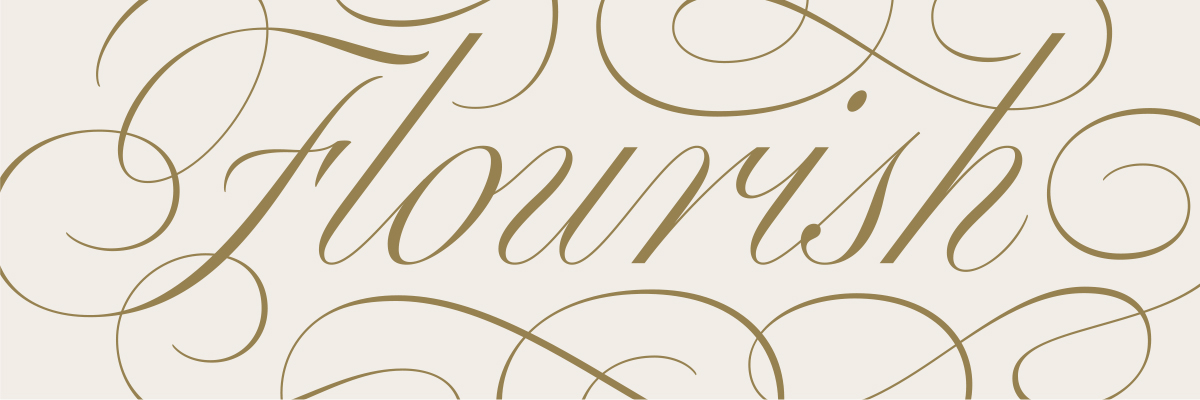
The personality and allure of flourished script is tough to ignore, making decorative lettering particularly ideal for creating memorable advertisements and identities. During this workshop, students will learn techniques for drawing well-constructed and attractive flourishes to enhance logotype, packaging and publication work.
With the aid of reference models spanning the 18th to the 21st century, participants will begin by drawing formal script as the base for their ornamental linework. Next, students will learn about the different varieties of flourishing (including vine work, cartouches and pictorial styles), basics of stroke construction, as well as entry/exit points for embellished upper- and lowercase letters. Skill-building exercises will reinforce concepts such as fluid movement and spacial balance, while slide shows and demonstrations will illustrate how to combine strokes to devise more complex compositions. Important details such as volume, proportion and shading will also be addressed.
Please note that much of the flourishing content of this workshop was introduced during my 2016 week-long summer workshop, Advanced Techniques In Script Lettering. The introductory section on drawing formal script is also similar to the information provided in my Script Lettering class.
This course will focus on pencil-drawing techniques intended to reinforce ideas foundational to Flourished Script. Although workshop participants will not be using vector drawing software, a brief presentation on digitization will be given.
Finally, prospective students are encouraged to reference The Universal Penman by George Bickham, and Script Lettering for Artists by Tommy Thompson. The Dover Books reprinted editions are both affordable and easy to acquire.